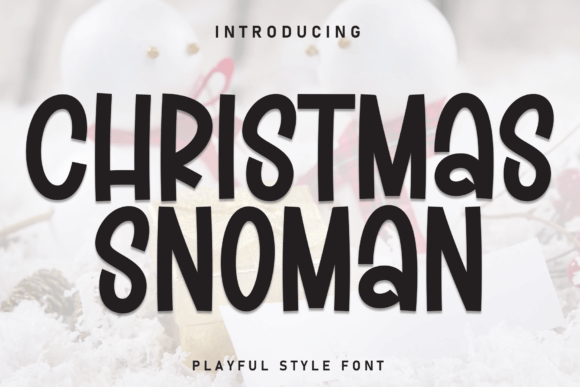
Winter Wonderland Typography: Discover the Magic of Christmas Snowman Font
As the snowflakes start falling and the holiday season approaches, many of us get caught up in the excitement of decorating our homes, baking sweet treats, and sending out festive invitations. But have you ever found yourself struggling to capture the essence of Christmas in your designs? That’s where the Christmas Snowman Font comes in – a fun and playful display font that brings a touch of winter wonder to any project.
With its rounded, fluffy letters that resemble snow, this charming font is perfect for holiday cards, party invitations, and cheerful decorations. Whether you’re a seasoned designer or a DIY enthusiast, the Christmas Snowman Font is a valuable addition to your toolkit. Its versatility and festive spirit make it an ideal choice for adding a personal touch to your holiday creations.
Christmas Snowman Font Key Features
- Character Count: 100+ characters, including uppercase and lowercase letters, numbers, and special characters, to provide versatility in design applications.
- Unique Characteristics: The font features a playful, hand-drawn design with a snowman theme, making it perfect for winter-themed designs, holiday cards, and festive projects.
- Font Style: The font is available in a single style, but its playful and whimsical nature makes it suitable for various design applications, from headings to body text.
Christmas Snowman Font Review
I recently had the chance to work with the “Christmas Snowman Font” and I must say, it’s a fun and festive addition to any winter-themed project. ✨ The font’s whimsical design and playful feel make it perfect for creating a cozy atmosphere.
- Unique design: The font’s snowman-inspired design is sure to grab attention and add a touch of personality to any project.
- Festive feel: The font’s colors and design elements evoke a sense of joy and celebration, making it perfect for holiday-themed projects.
- High-quality glyphs: The font’s glyphs are well-designed and easy to read, even at small font sizes.
- Limited language support: The font may not be suitable for projects that require support for multiple languages.
- Not ideal for body text: Due to the font’s playful design, it may not be the best choice for body text or large blocks of text.
- May require additional styling: Depending on the project, the font may require additional styling to ensure it looks its best.
Overall, the “Christmas Snowman Font” is a great choice for anyone looking to add a touch of whimsy and festivity to their project. While it may have some limitations, its unique design and high-quality glyphs make it a great addition to any winter-themed project.
The Christmas Snowman Font is perfect for creating festive holiday designs, including:
- Holiday cards and invitations
- Christmas and New Year’s decorations
- Holiday party invitations and decorations
Use the Christmas Snowman Font to add a touch of holiday cheer to your designs.